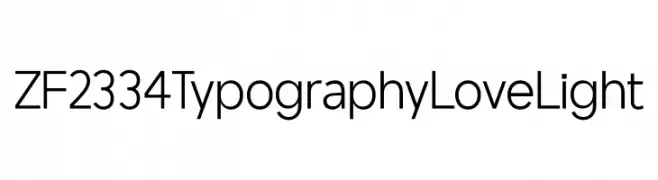
An ornate and historical font with intricate, dramatic letterforms typical of the Schwabacher style.
A bold, intricate Blackletter font with dramatic, angular letterforms.
A modern, geometric font with rounded edges and bold characters.
A decorative and intricate font with geometric embellishments and a futuristic style.
A modern, sleek font with elongated, narrow characters and consistent stroke width.
A modern, geometric font with elongated, narrow letterforms and a sleek design.
A raw, hand-drawn font with jagged, energetic strokes.
A bold, expressive brush-style font with dynamic, handcrafted strokes.
A playful, hand-drawn style font with irregular, textured strokes.
A bold, hand-drawn font with a playful and dynamic style.
A playful, hand-drawn font with a whimsical and informal style.
A bold, hand-drawn font with a rugged and energetic style.
A modern, geometric font with bold, consistent strokes and a sleek design.
A sleek, modern italic font with geometric lines and a dynamic appearance.
A modern, italicized font with a sleek and dynamic design.
A modern, geometric font with a sleek, futuristic design.
A modern, geometric font with clean lines and a futuristic feel.
A bold, distorted font with high contrast and dynamic style.
A playful, casual handwritten font with thin, whimsical strokes.
A modern, rounded sans-serif font with a clean and approachable design.
A sleek, modern oblique font with medium weight and geometric shapes.
A bold, oblique font with a modern and dynamic style.
A bold, geometric sans-serif font with rounded edges and uniform stroke width.
A decorative, distressed font with a grunge-like, edgy appearance.
A bold, graffiti-inspired font with dynamic and expressive strokes.